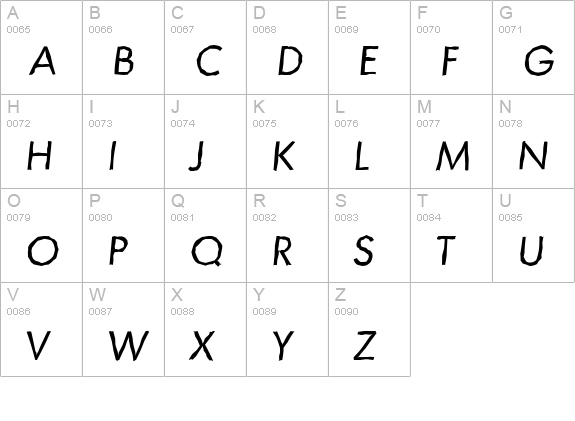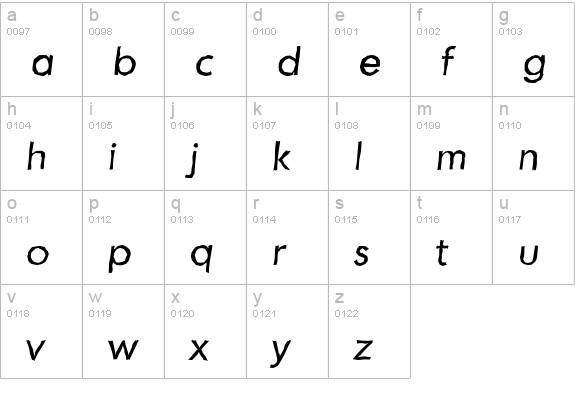
MontrealAntique-Italic Font Details
MontrealAntique-Italic is a distinctive, italic variant in the MontrealAntique typeface family \xE2\x80\x94 well suited to design and typography projects.
MontrealAntique-Italic font is a timeless and elegant typeface that exudes a sense of nostalgia and sophistication. Its intricate details and delicate curves make it perfect for adding a touch of vintage charm to any design project. The italic style adds a sense of movement and flair, making it ideal for creating eye-catching headlines or elegant invitations. What sets MontrealAntique-Italic font apart is that it is available for free download at FontsMarket.com. This means that you can easily access this beautiful typeface and incorporate it into your creative work without any cost. Whether you're designing a poster, logo, or website, MontrealAntique-Italic font is sure to elevate your project with its classic appeal and unique character. Don't miss out on the opportunity to enhance your designs with the MontrealAntique-Italic font. Download it for free today and add a touch of vintage sophistication to your next project.